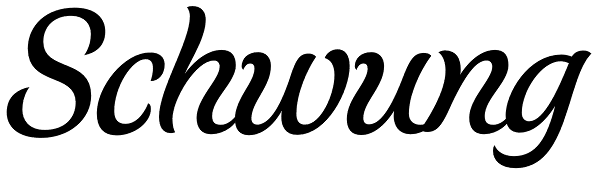
Schwung
Schwung is a brush script headline typeface. It has round elegant swirls that get stronger in the alternate version. Ideal for food packaging and product branding, it is designed to be clear and self-confident. Schwung does not need very much space...
Schwung Alternate
Schwung